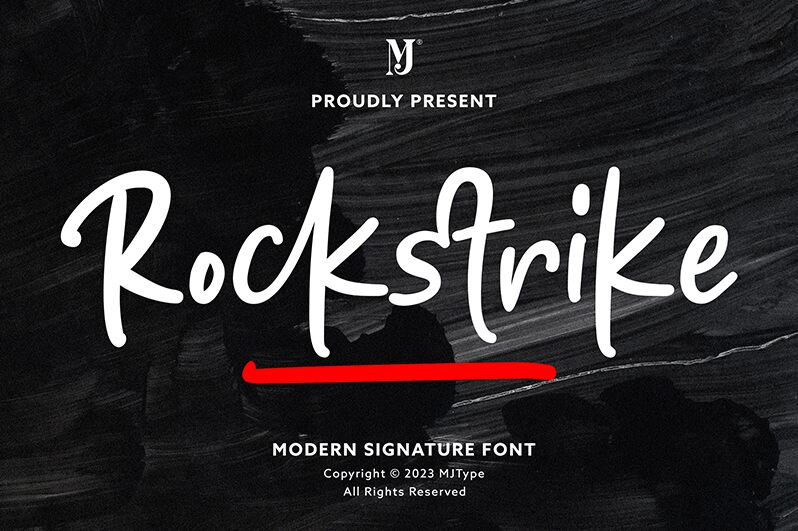
Rockstrike
Rockstrike, the mesmerizing handwritten font by MJType, exudes a perfect blend of elegance and boldness. Its graceful curves and mesmerizing strokes make it ideal for projects that demand a touch of creativity and uniqueness. Whether you're designing wedding invitations or crafting eye-catching logos, Rockstrike's charismatic charm is sure to captivate your audience. With its versatile semi-bold font style, this typeface effortlessly adds an element of sophistication to branding materials, advertising campaigns, or even social media graphics. Embrace the power of Rockstrike and elevate your designs to new heights.